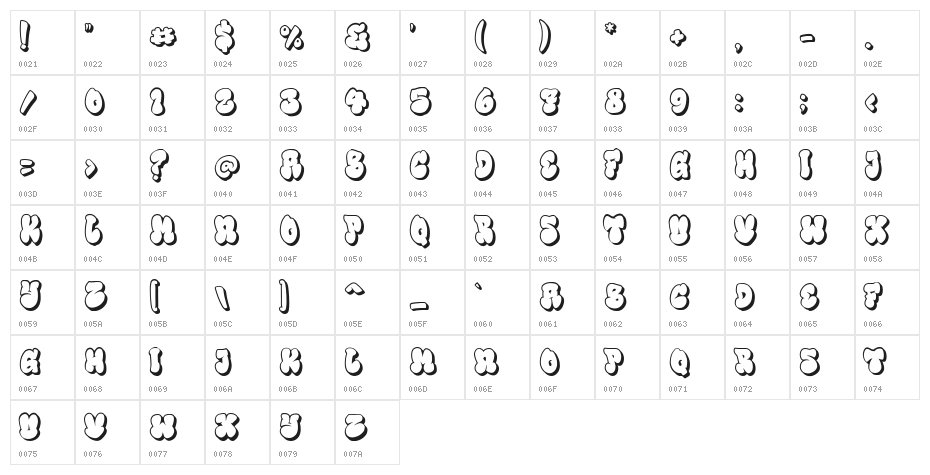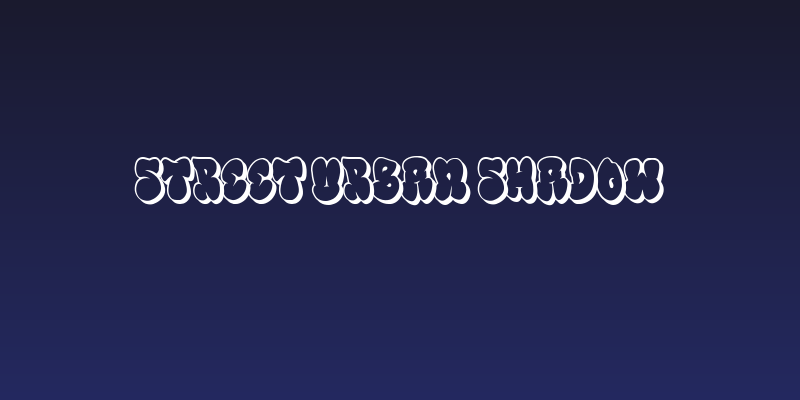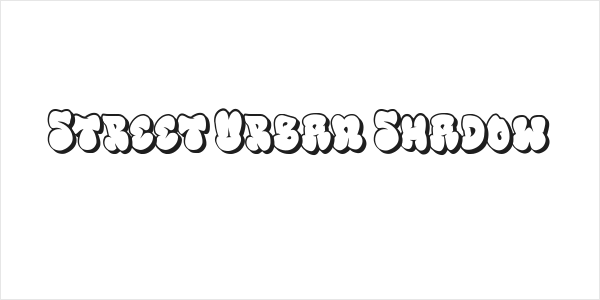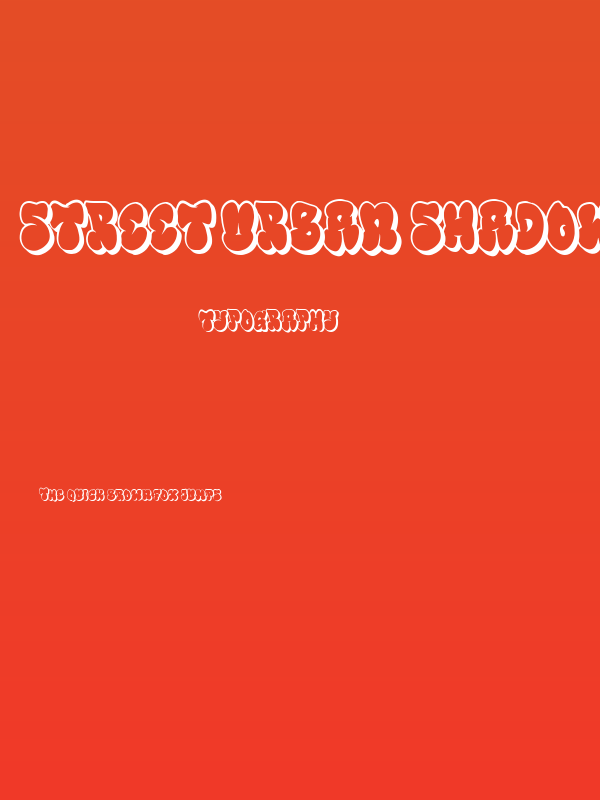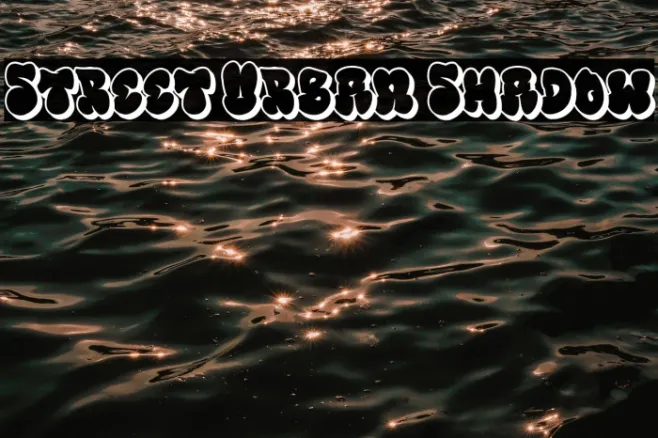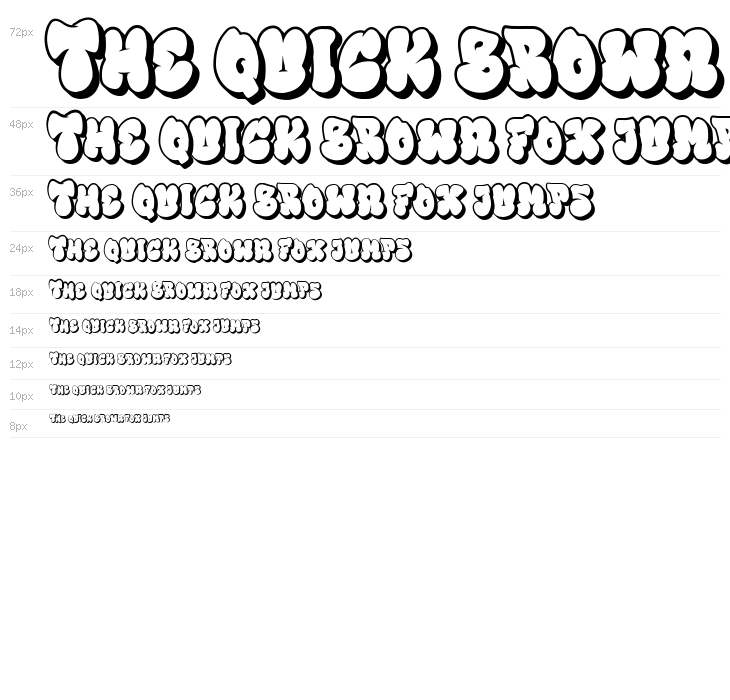
Street Urban Shadow Font
Street Urban Shadow Description
This font features a bold, playful style with a strong urban influence. Each character is designed with a thick, rounded form and a prominent shadow effect that gives a three-dimensional appearance. The letters are evenly spaced, maintaining a cohesive look across both uppercase and lowercase alphabets. The numbers and special characters follow the same design principles, ensuring consistency throughout. The font's bubbly and exaggerated forms make it ideal for eye-catching designs. Its unique style is perfect for projects that aim to convey a sense of fun and creativity.
| Overall Style | Urban, Playful, Modern |
| Use Case | Logos, Posters, Headlines |
| Proposed Projects | Ideal for street art designs, graffiti-inspired projects, posters, and playful branding. |